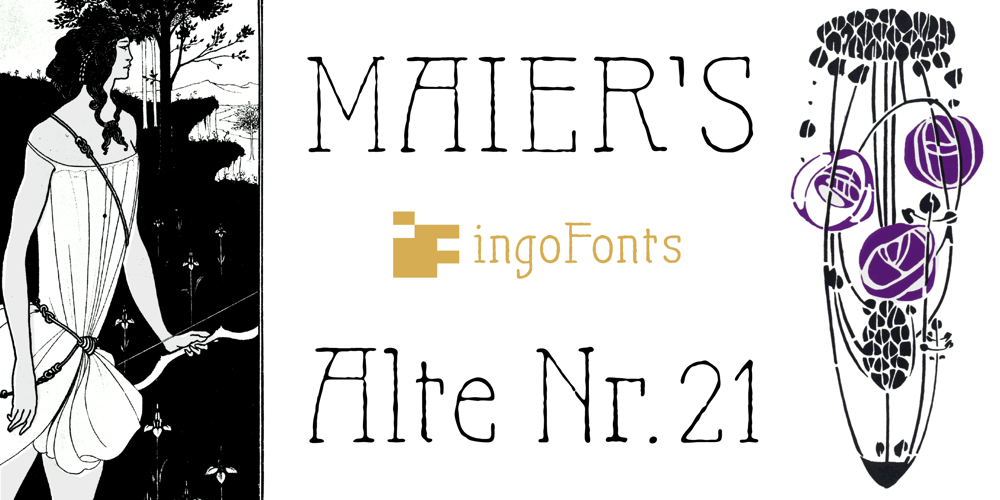
Maiers Nr 21 Pro Font Family was designed by Ingo Zimmermann and published by Ingo. Maiers Nr 21 Pro contains 3 styles and family package options. A handwritten ”font for technicians“ from ca. 1900. Very geometrical, rigid forms borrowed from the typical characteristics of Jugendstil / Art Nouveau.This script is found in a magazine from the Otto Maier publishing house, Ravensburg, which was issued sometime in the years shortly before WWI. The magazine is entitled ”Schriften-Sammlung für Techniker: Verkleinerte Schriften der wichtigsten Alphabete“ (Collection of scripts for technical specialists: reduced scripts of the most significant alphabets) and published by Karl O. Maier. The original copy, produced by means of a galvanized plate, is just 7 centimeters wide. It served as the model for technical professions in which, at that time, the captions of drawings were still done by hand.The characters have been scanned, digitized and greatly magnified. Special attention was given to ensure the ”uneven“ edges, typical of handwritten script, remained effectively noticeable even in the digitized form. As a result, this ”technical“ font retains a handmade touch.Especially worthy of note are the Jugendstil forms characteristic at the turn of the19th century.In comparison, many alleged ”ultramodern“ font types of today suddenly look quite old-fashioned.Maier’s Nr. 21 Pro is suitable for all European languages. It includes ”Latin Extended-A,“ for Central and Eastern Europe incl. Turkish, and even Cyrillic and Greek, too.The font includes several stylistic alternates as well as a number of ligatures.